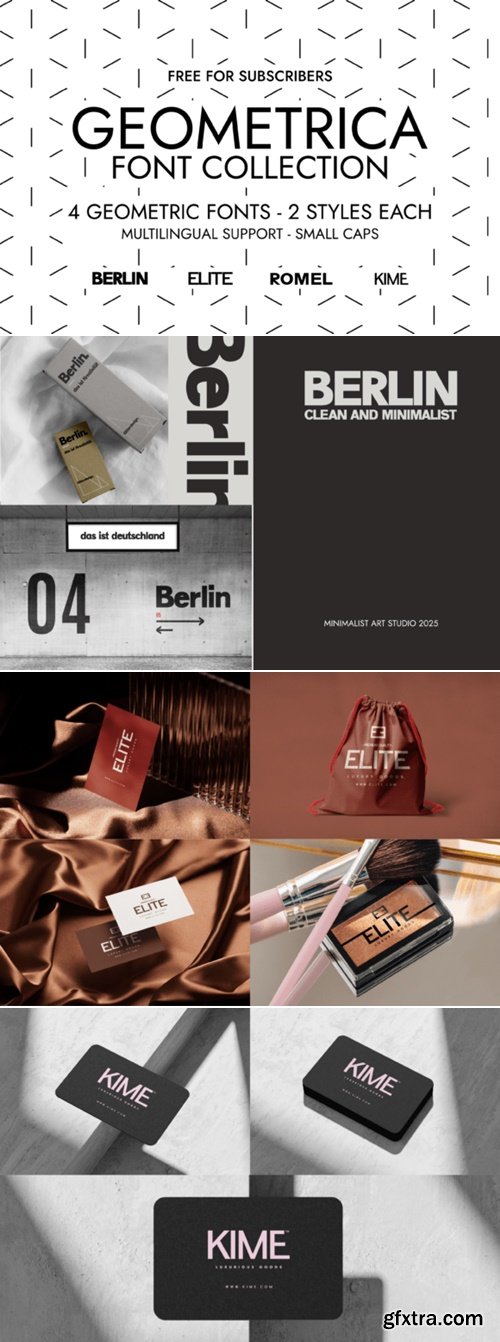
Geometrica Font
- Discover Geometrica Font Collection – a premium set of four geometric minimalist sans serif fonts inspired by iconic Swiss design principles. Crafted with precision and made for modern creatives, this clean and versatile collection includes KIME, ROMEL, BERLIN and ELITE, each available in Regular and Italic styles.
- These fonts deliver a grotesque, highly legible and contemporary aesthetic, perfect for branding, packaging design, editorial layouts, web design, luxury products, high-end cosmetics, and minimal design projects.
- Every typeface has been carefully designed to provide perfect visual balance and timeless simplicity. The geometry of each character offers a refined appearance that evokes professionalism, elegance and high credibility — allowing you to elevate your projects with effortless sophistication.